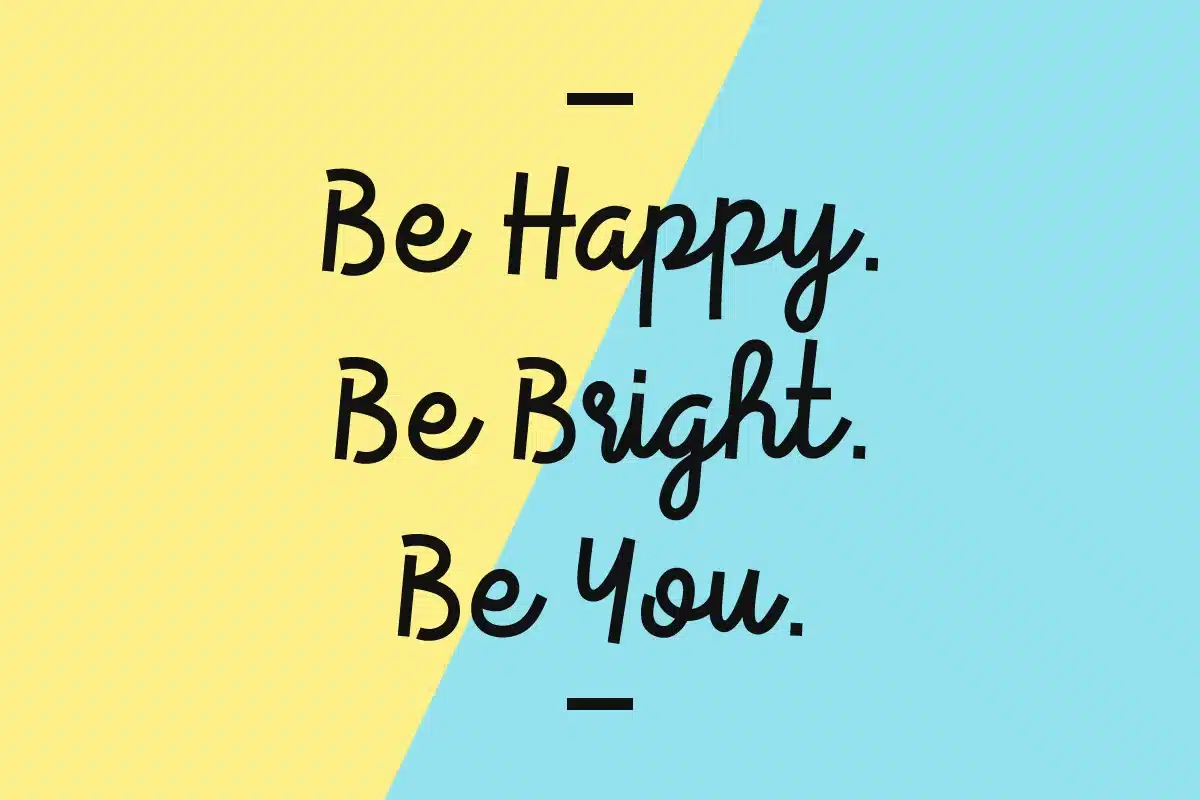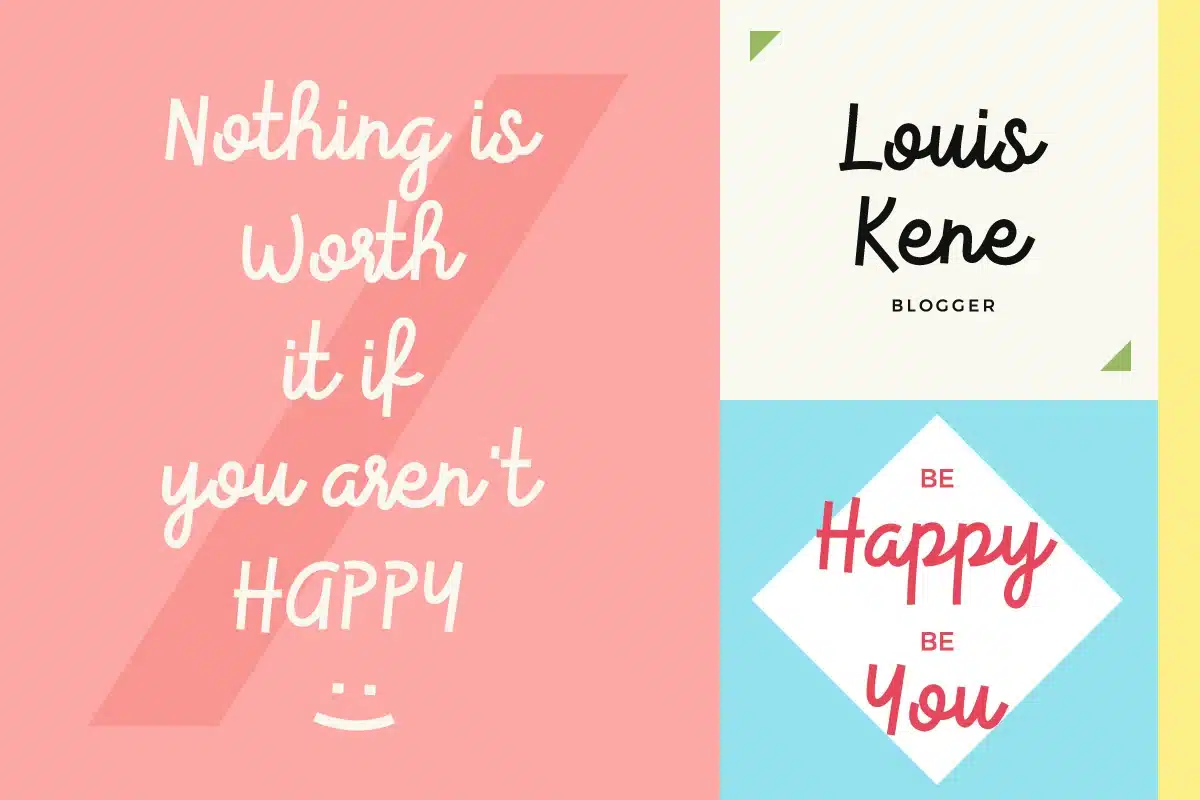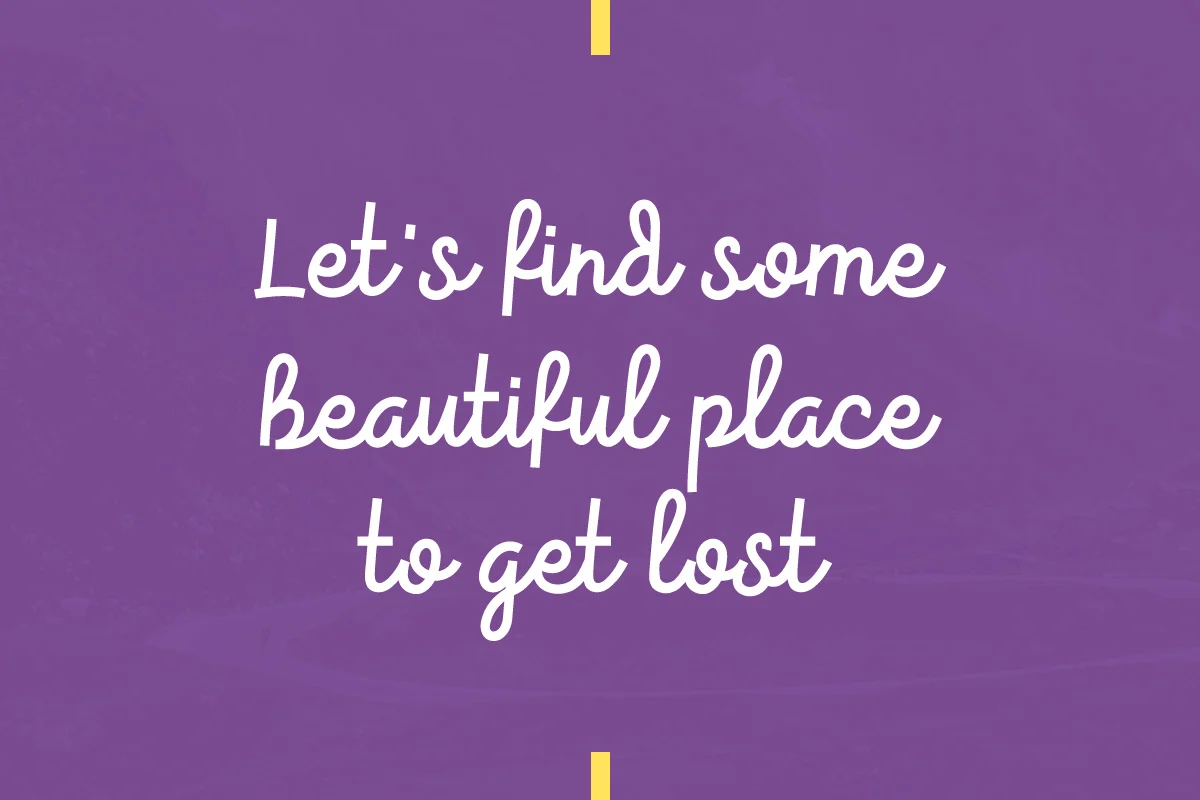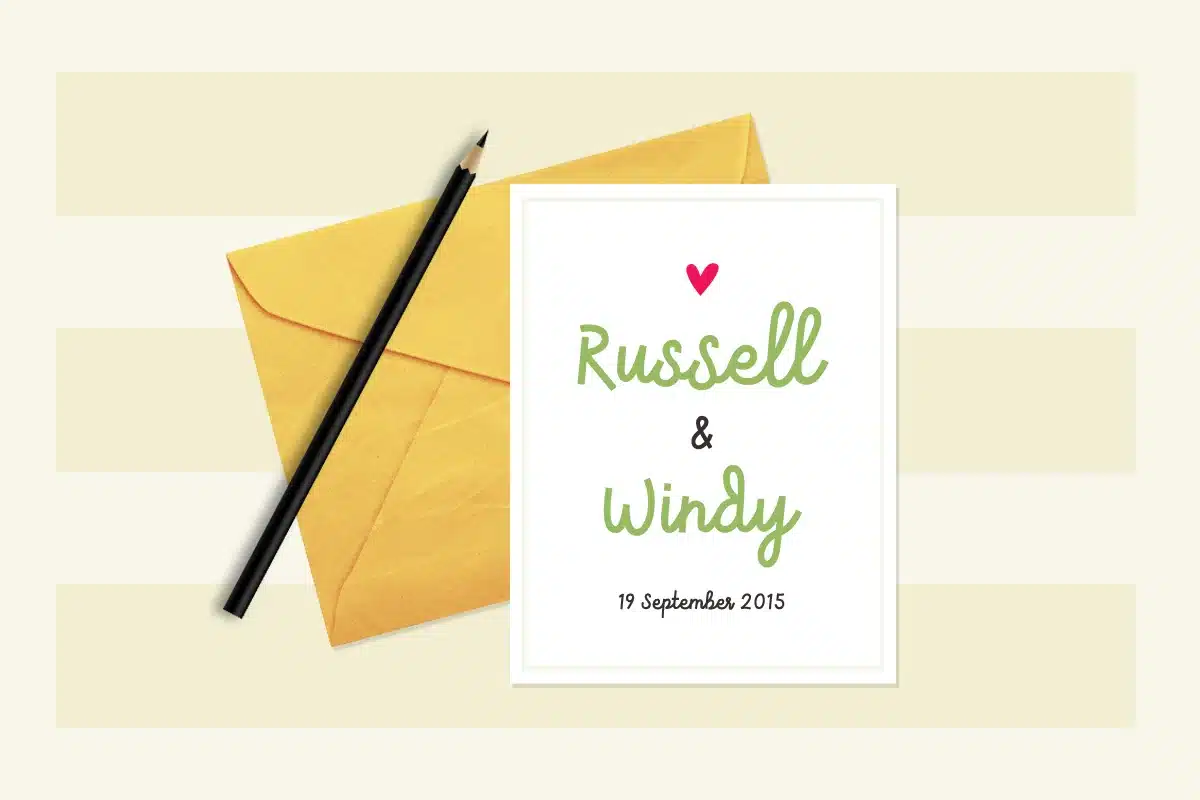
Ruffest Font
Ruffest is modern script font, every single letters have been carefully crafted to make your text looks beautiful. With modern and clean style this font will perfect for many different project ex: quotes, poster, wedding, branding, logo, fashion, apparel, letter, invitation, stationery, etc.
Ruffest including alternates and multiple language support.